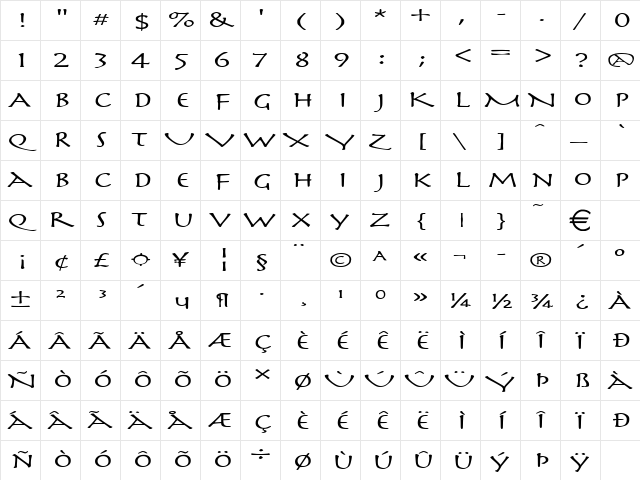
MythologyExtended Normal
Design Context for MythologyExtended Typeface
MythologyExtended takes a measured approach to typography — its balanced proportions and neutral character make it a reliable workhorse for both digital and print work.